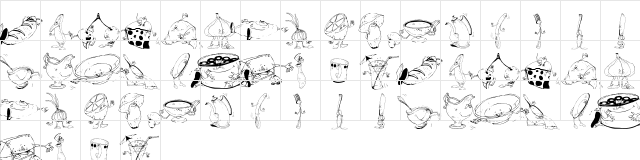
DT No Mickey D Regular
Design Context for DT No Mickey D Typeface
DT No Mickey D is a composed and adaptable typeface that performs quietly and consistently across a wide range of design contexts.